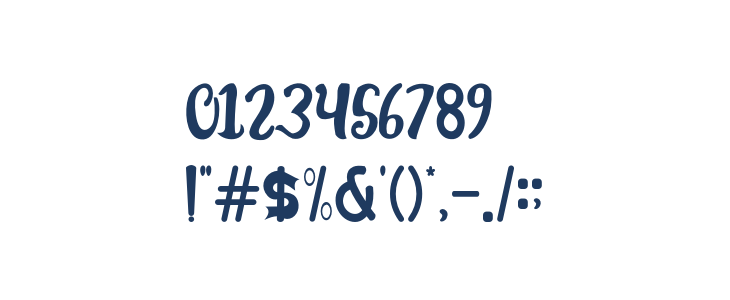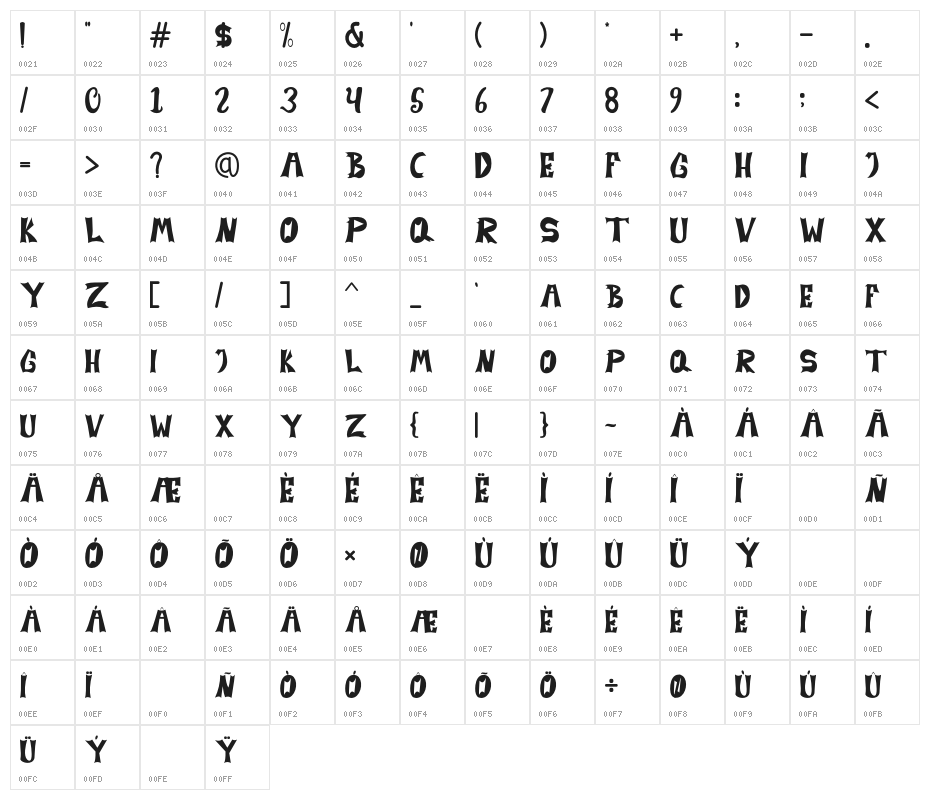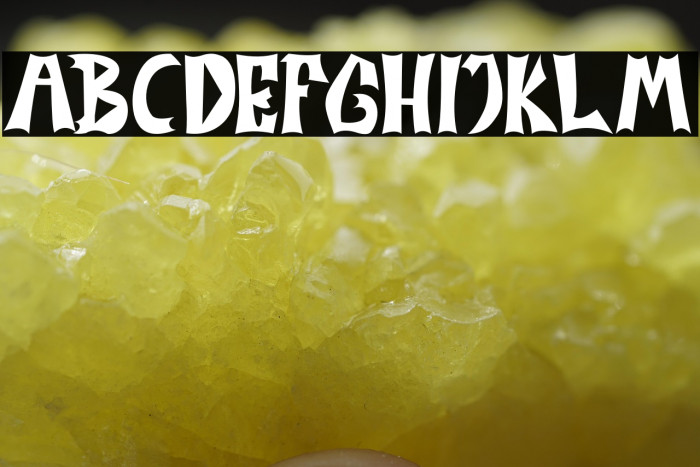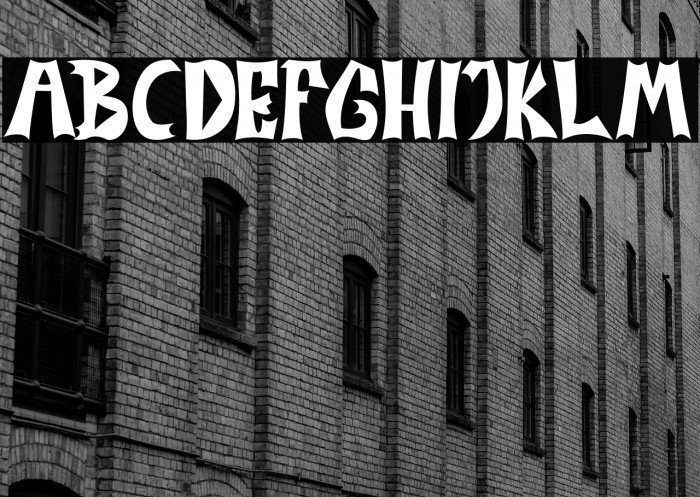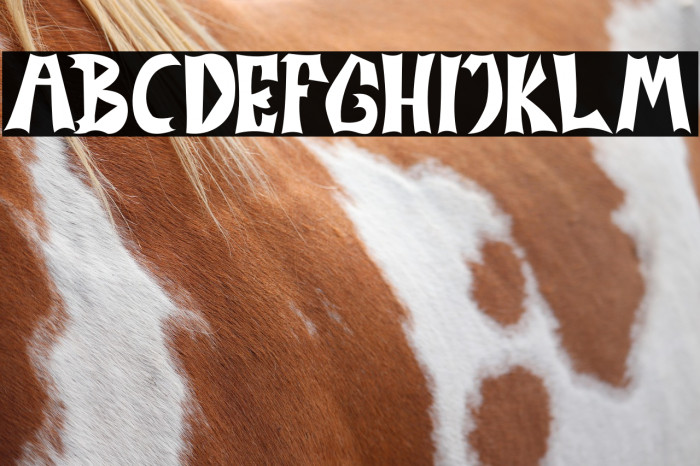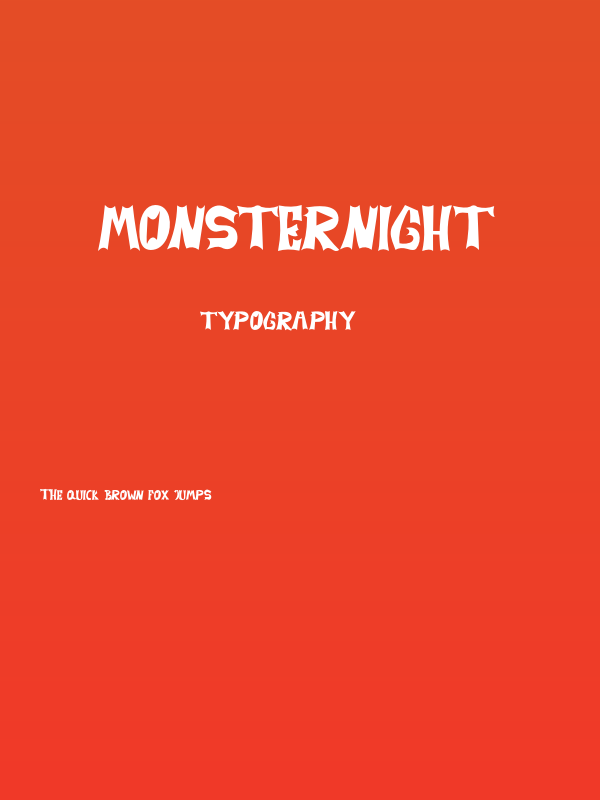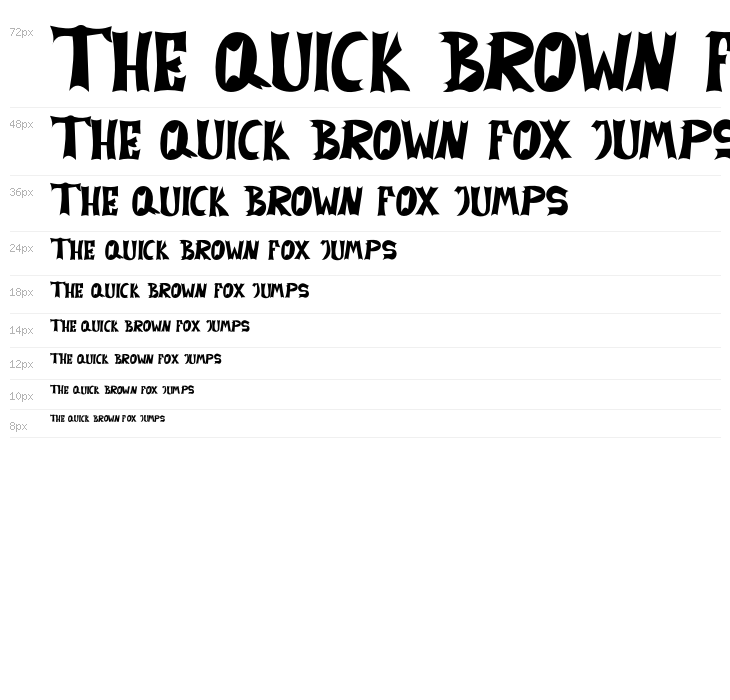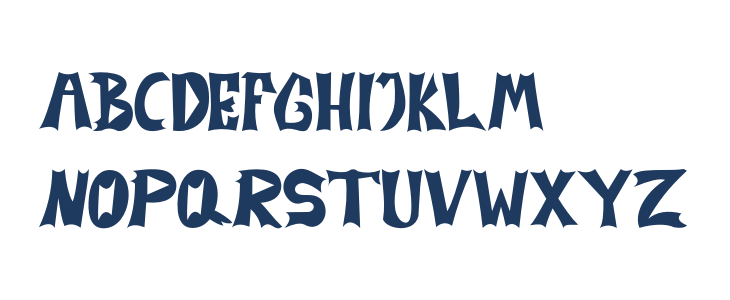
MONSTERNIGHT Font
MONSTERNIGHT Description
This font features a bold, dramatic style with sharp, angular edges and a slightly irregular form that gives it a dynamic and energetic appearance. The uppercase letters are particularly striking, with exaggerated serifs and a sense of movement that makes them stand out. The lowercase letters maintain this boldness, though they are slightly more restrained, offering a good balance for readability. The numbers and special characters are consistent with the overall style, ensuring a cohesive look across all text. This font is ideal for projects that require a strong visual impact, such as posters, headlines, or branding materials. Its unique design elements make it suitable for themes related to horror, adventure, or fantasy, where a touch of the dramatic is desired.
| Proposed Projects | Posters, headlines, branding, horror or adventure themes. |